Graffiti is more than just an art style—it’s a culture, a movement, and a rebellious voice that continues to shape global design trends. Our Thug Graffiti Text Design | Street Art Vector & PNG | SVG brings raw street authenticity directly into your creative projects. Designed with wild graffiti strokes, dripping edges, and bold thug-inspired letterforms, this artwork instantly upgrades your designs with fearless urban energy.
Why This Thug Graffiti Vector Design is Essential
When it comes to visual communication, boldness and authenticity matter. The Thug Graffiti Text Design Vector is more than just a piece of clip art—it’s a hand-crafted street art vector with an edge. Inspired by the spirit of hip hop, underground murals, and urban walls, it captures the essence of rebellion and creativity in every stroke.
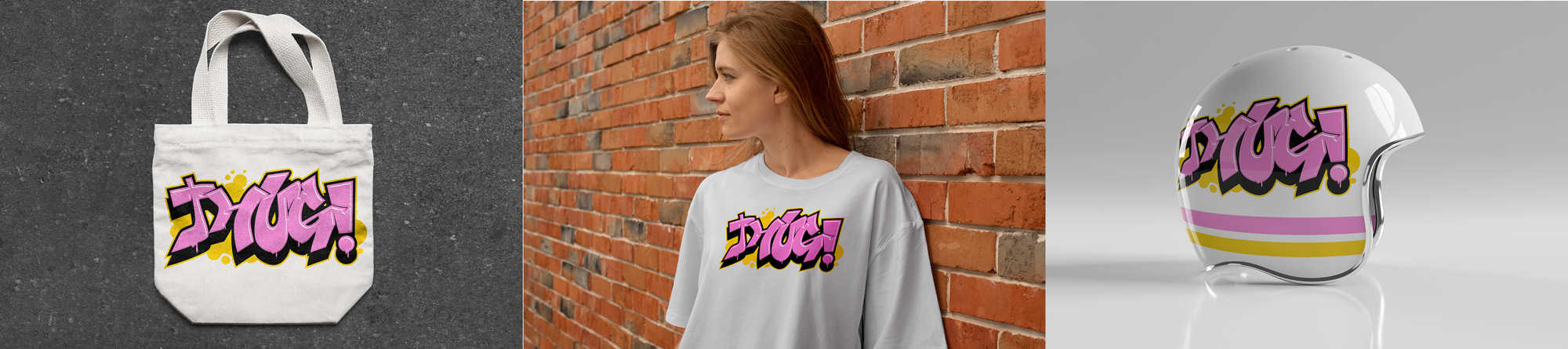
✔ Bold thug graffiti style inspired by authentic street art
Why Designers Love It
Designers choose this vector pack because it delivers both style and flexibility. Unlike generic graphics, the Thug Graffiti Text Design has been carefully built to look raw, bold, and urban—just like real graffiti you’d find on the walls of a city. It feels hand-crafted yet polished enough to use in professional branding.